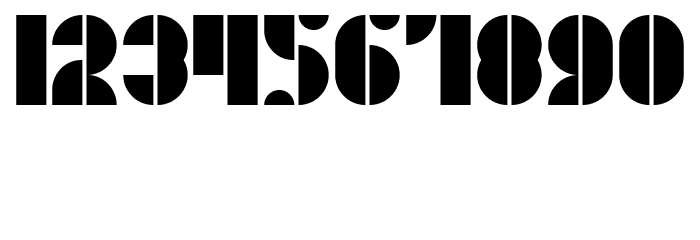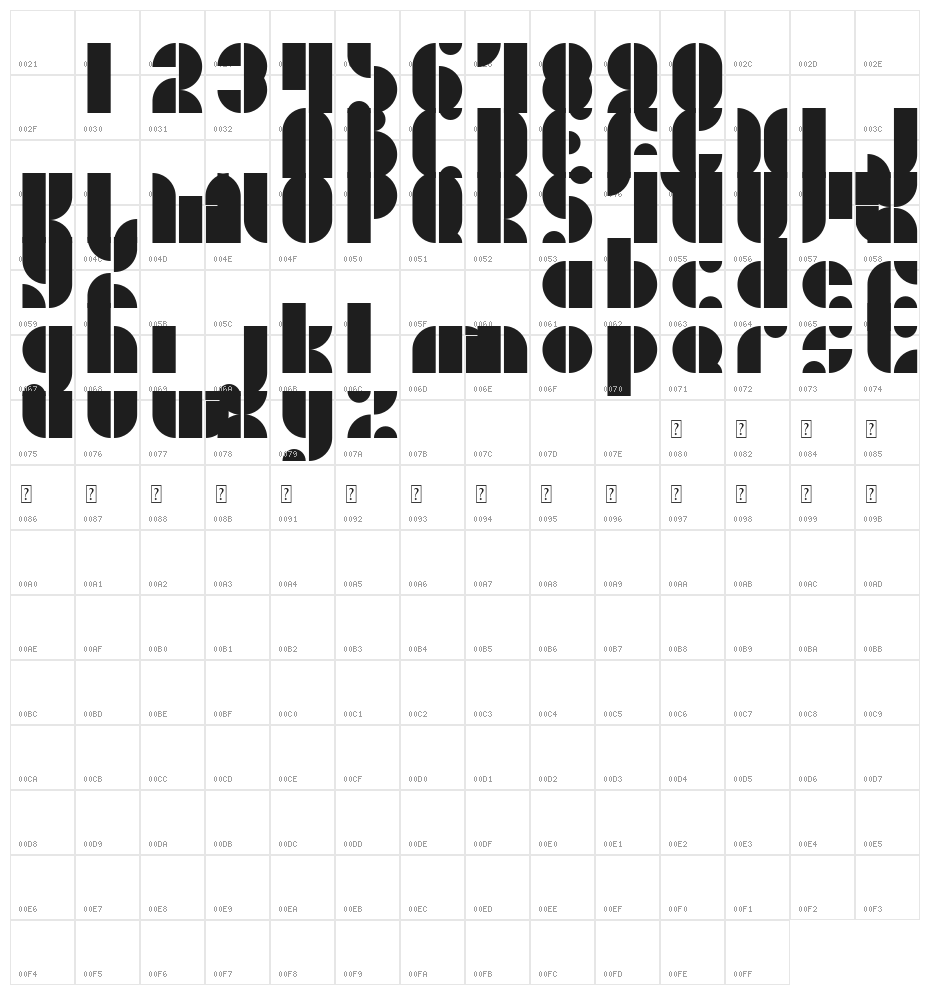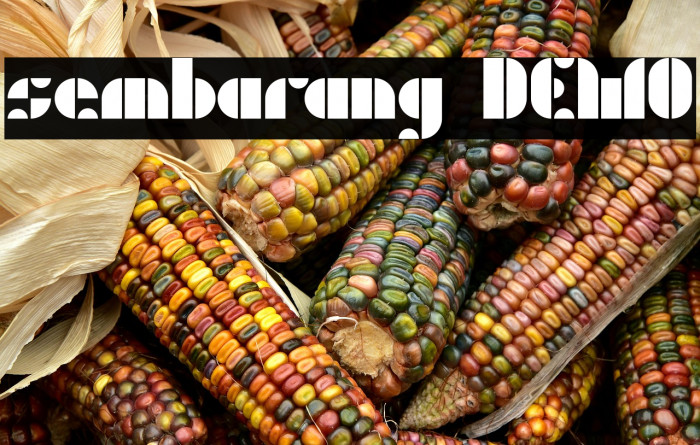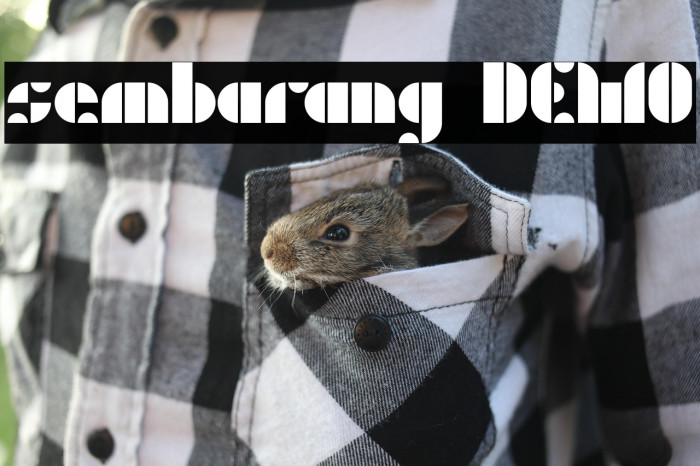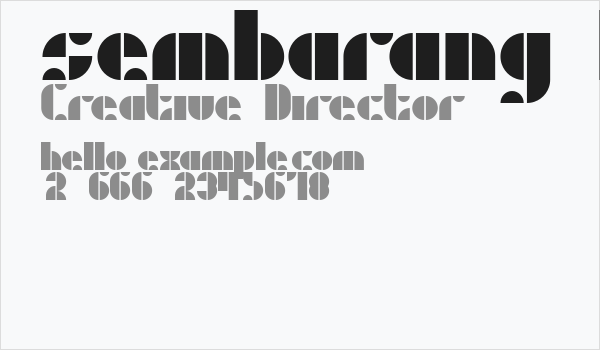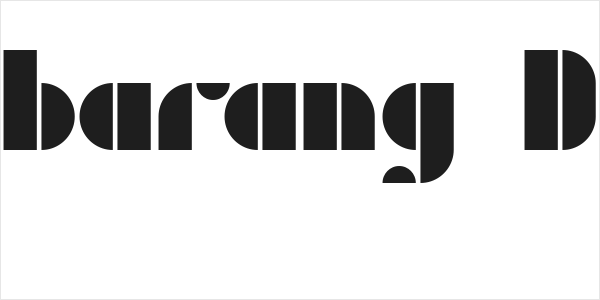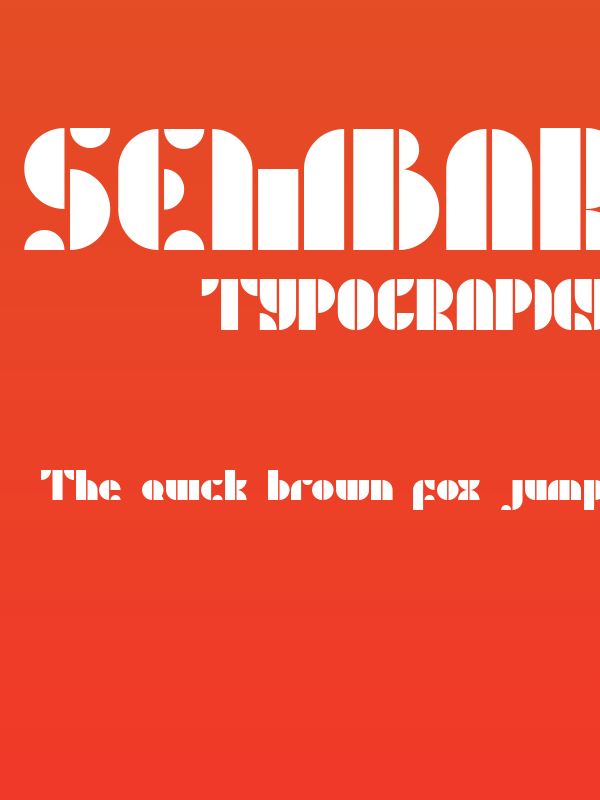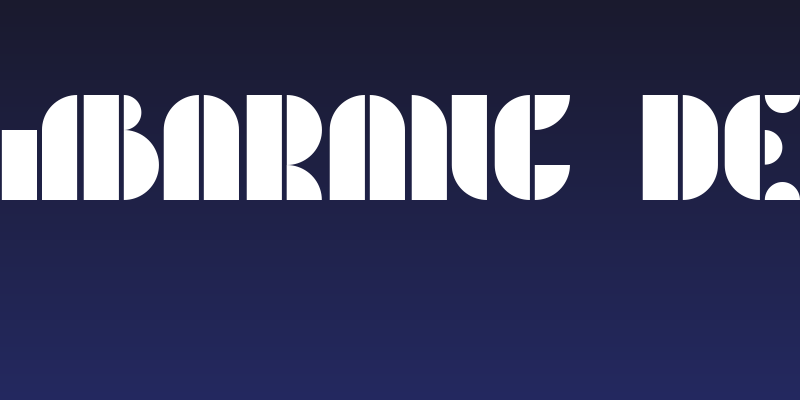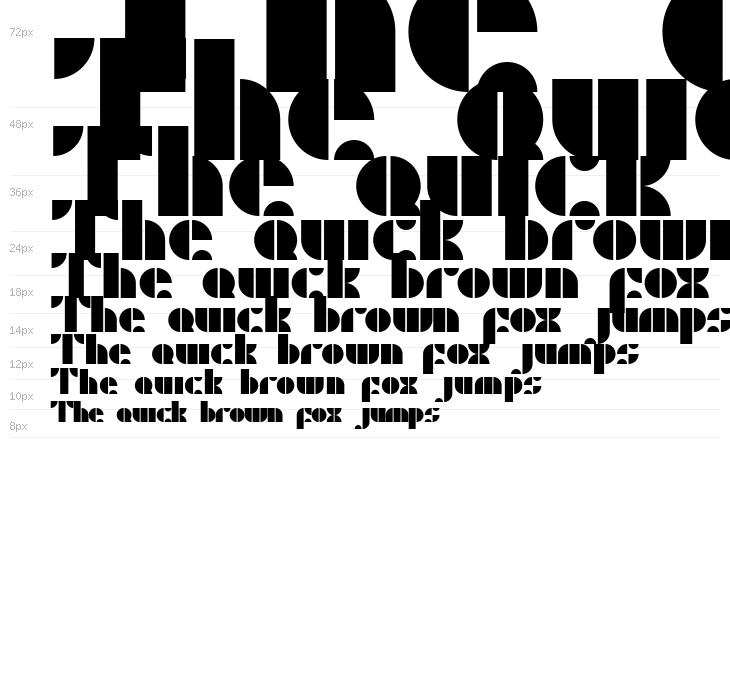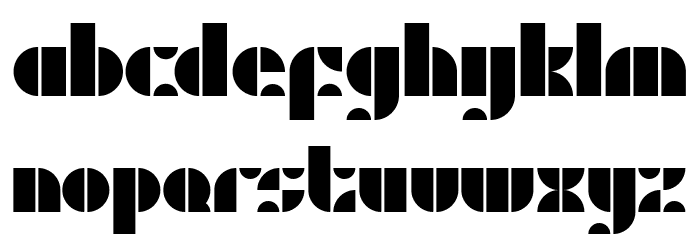
sembarang DEMO Font
sembarang DEMO Description
This font features a bold and geometric design with a unique play on negative space, creating a striking visual impact. Each character is crafted with precision, using solid black shapes interspersed with circular cutouts that add a modern and artistic flair. The uppercase and lowercase letters maintain a consistent style, with a strong emphasis on symmetry and balance. The numbers and special characters follow the same design principles, ensuring a cohesive look across all elements. This font's distinct appearance makes it ideal for projects that require a bold statement.
| Proposed Projects | Ideal for branding, poster design, album covers, and any project needing a bold, artistic touch. |